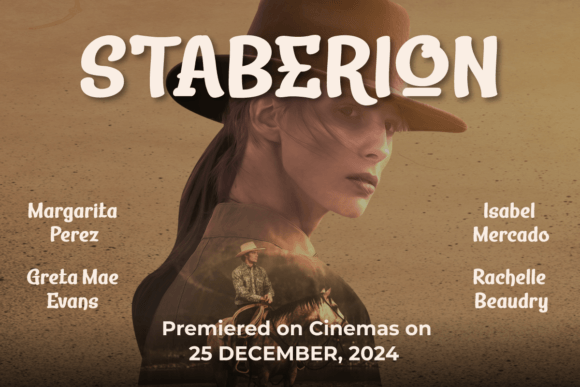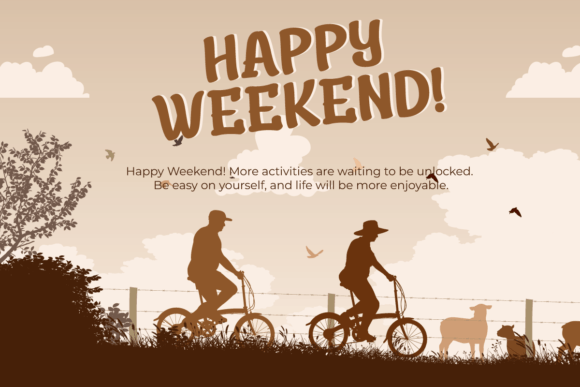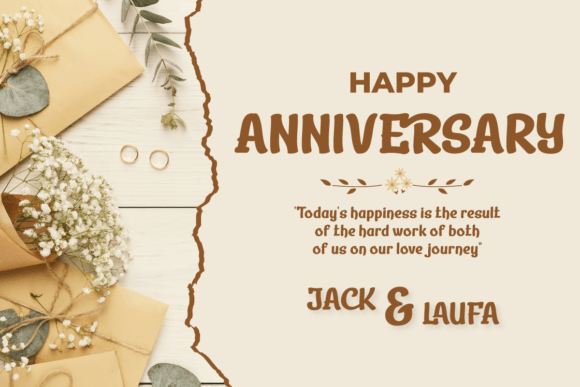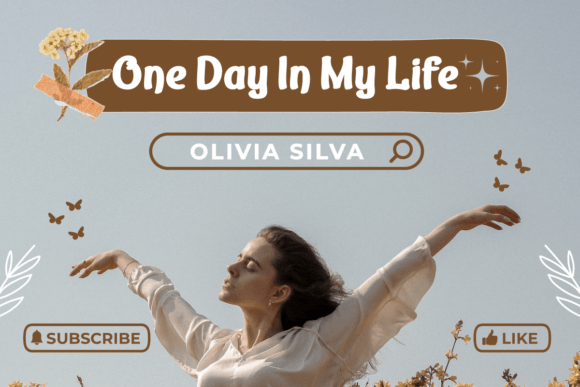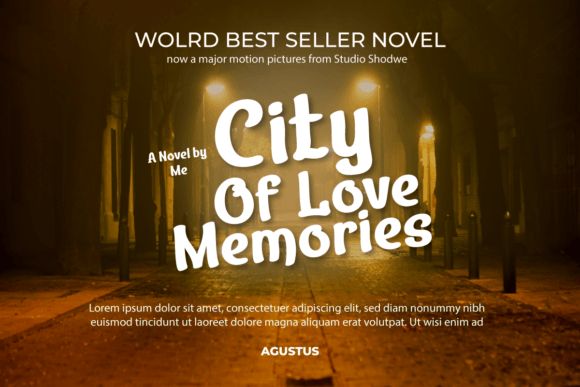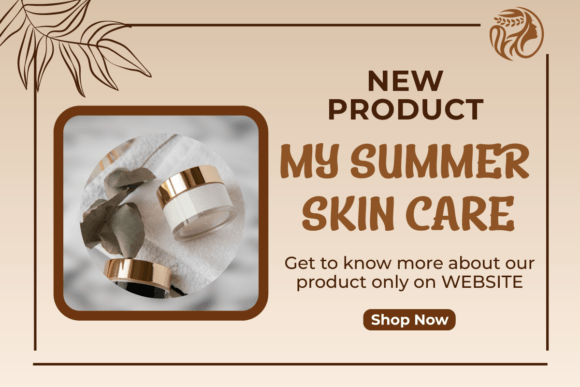
Discover the Unique Charm of Faulaz Font: Elevate Your Creative Projects
In the realm of typography, a font can make all the difference in setting your creative projects apart from the rest. If you’re on the hunt for a typeface that combines the warmth of handwritten text with a modern twist, look no further than Faulaz Font. This distinctive font is your passport to infusing a personal touch into your designs, making it an ideal choice for a wide range of applications.
The Essence of Faulaz Font
Faulaz Font is a masterful blend of traditional handwritten elements and contemporary design principles. Its unique character set is designed to capture attention and leave a lasting impression on your audience. Whether you’re working on invitations, posters, branding materials, or any other creative project, Faulaz Font is the perfect choice to add a touch of personality and sophistication.
Key Features of Faulaz Font
- Handwritten Warmth: Faulaz Font boasts a warm and inviting aesthetic, reminiscent of handwritten text. Its fluid strokes and subtle imperfections give it a personal touch that resonates with readers.
- Contemporary Aesthetic: Despite its handwritten roots, Faulaz Font features a modern design that’s perfect for contemporary projects. Its clean lines, balanced proportions, and elegant curves make it a versatile choice for a wide range of applications.
- Attention-Grabbing: Faulaz Font is designed to capture attention and make a statement. Its unique character set and distinctive style ensure that your designs stand out from the crowd and leave a lasting impression.
- Versatility: Faulaz Font is an incredibly versatile typeface that can be used in a variety of contexts, from formal invitations and posters to branding materials and digital media.
Why Choose Faulaz Font?
With so many fonts available, why choose Faulaz Font for your creative projects? Here are just a few compelling reasons:
- Personal Touch: Faulaz Font adds a personal touch to your designs, making them feel more approachable and engaging.
- Unique Style: Faulaz Font features a distinctive style that sets it apart from more traditional typefaces.
- Easy to Read: Despite its unique character set, Faulaz Font is incredibly easy to read, making it perfect for body text and headlines.
- Customizable: Faulaz Font can be easily customized to suit your specific design needs, from adjusting font sizes to experimenting with different colors and textures.
Using Faulaz Font in Your Designs
So, how can you incorporate Faulaz Font into your creative projects? Here are a few ideas to get you started:
- Invitations: Use Faulaz Font to create beautiful, one-of-a-kind invitations for weddings, parties, and other special events.
- Posters: Add a touch of personality to your posters with Faulaz Font, perfect for promoting concerts, exhibitions, and other events.
- Branding Materials: Use Faulaz Font to create unique and memorable branding materials, such as logos, business cards, and letterheads.
- Digital Media: Faulaz Font is also perfect for digital media, including social media graphics, email newsletters, and website headers.
In conclusion, Faulaz Font is a unique and versatile typeface that’s perfect for designers and crafters looking to add a personal touch to their creative projects. With its blend of handwritten warmth and contemporary aesthetic, Faulaz Font is sure to capture attention and leave a lasting impression on your audience. So why not give Faulaz Font a try and discover the difference it can make in your designs?